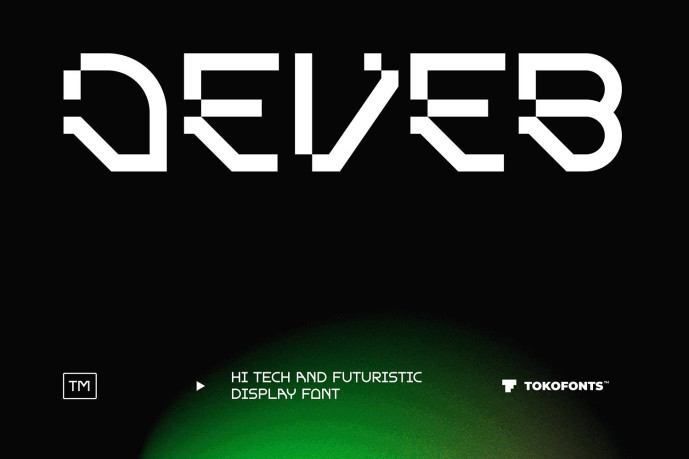
Deveb Font
Deveb Font is a modern, bold font designed for strong visual communication in logo design and digital branding. Built with clean, square structures and a futuristic tech aesthetic, Deveb delivers a sharp and confident look that feels precise and forward-thinking. Its digital character makes it ideal for technology-driven projects, modern logos, and branding systems that demand clarity, strength, and a contemporary edge.
With its powerful presence and clean geometry, Deveb performs exceptionally across gaming visuals, movie titles, posters, and animation projects. The font’s bold forms and futuristic style create high-impact typography suited for tech branding, digital interfaces, and cinematic layouts. Whether used as a standout logo font or a supporting typeface for creative media, Deveb brings modern technology-inspired energy to every design.